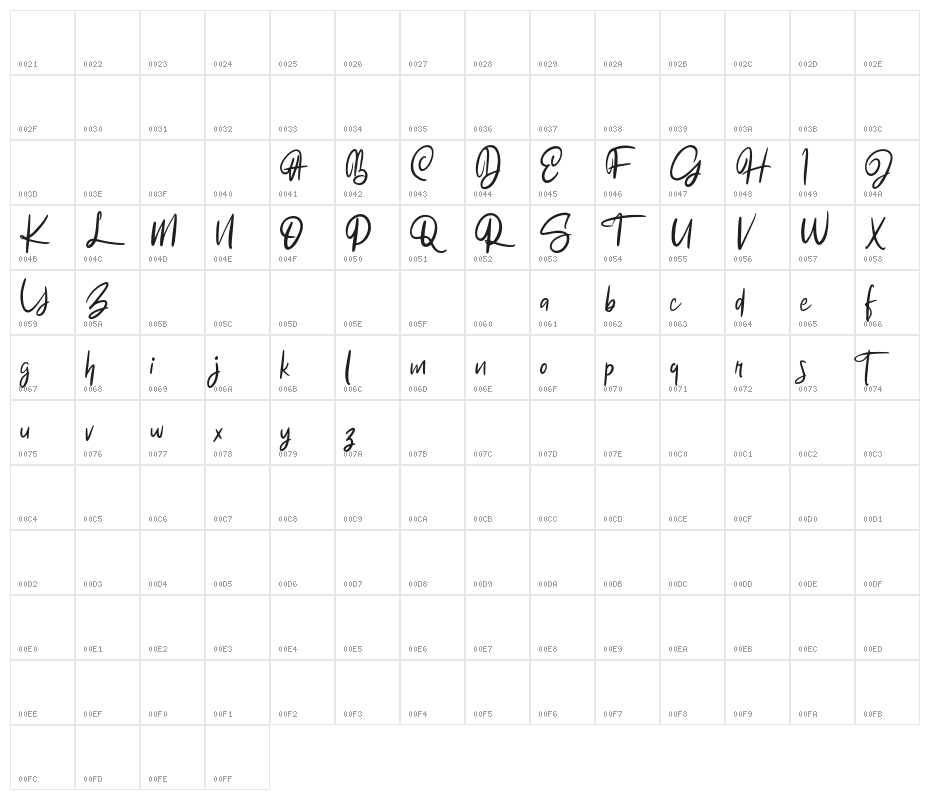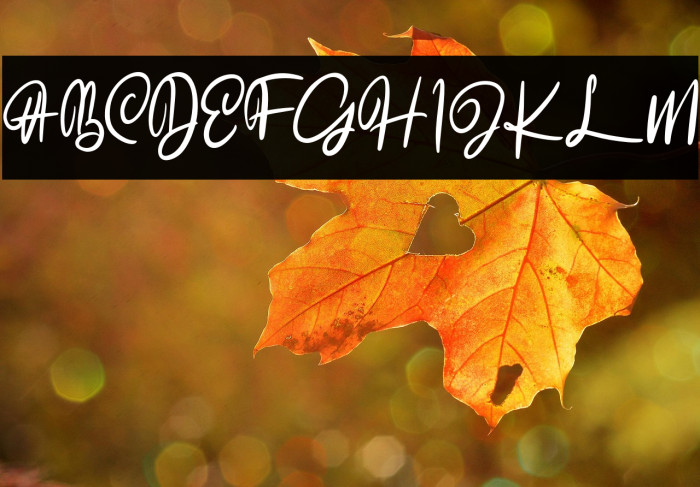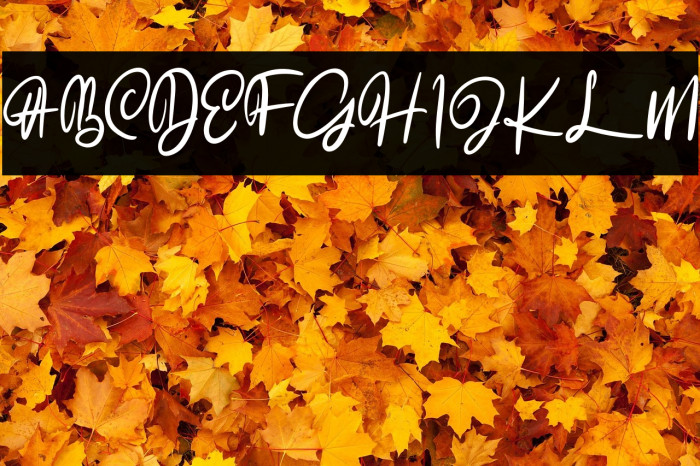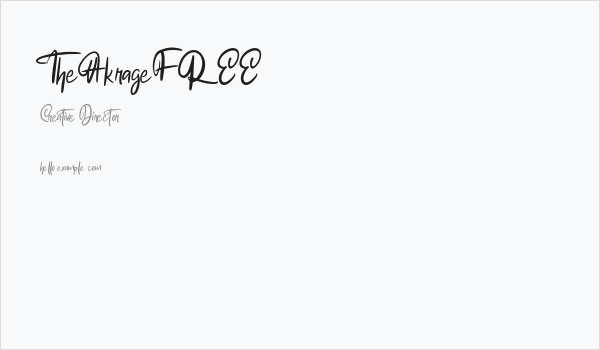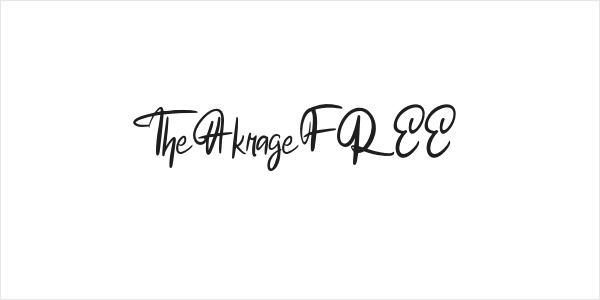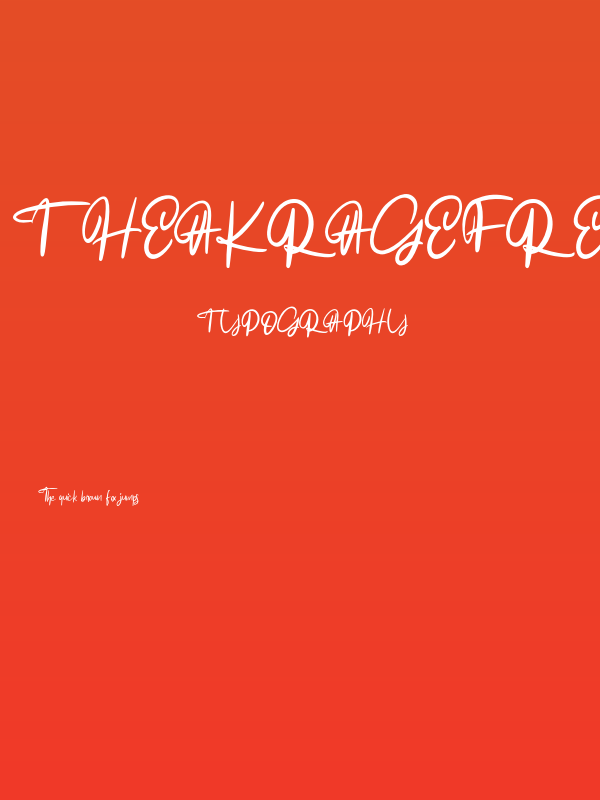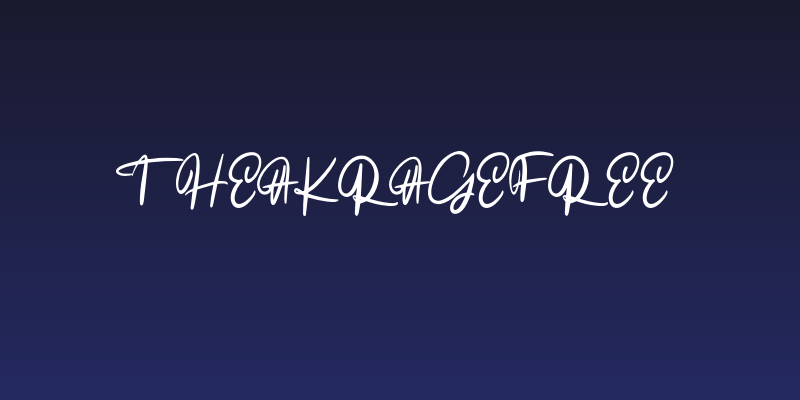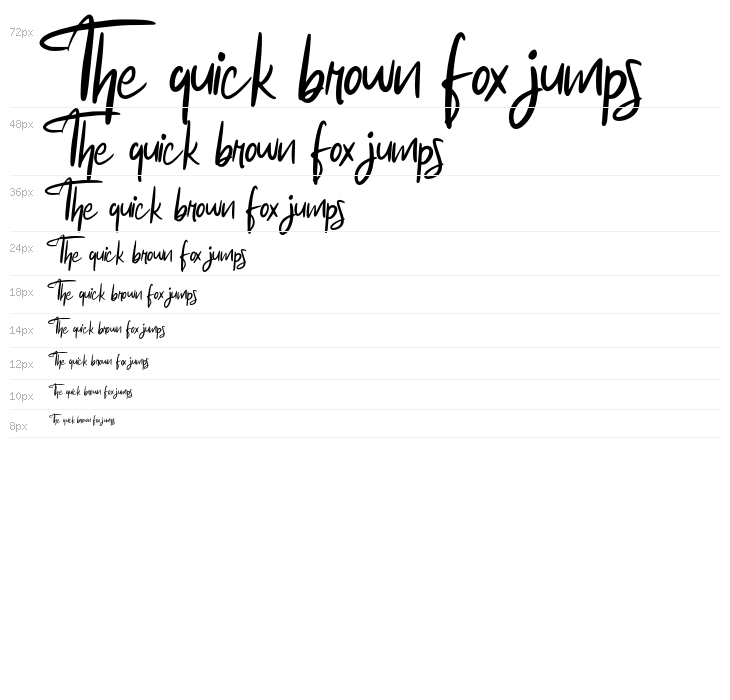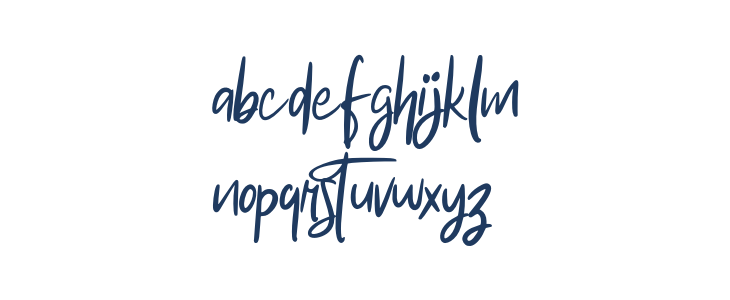
TheAkrageFREE Font
TheAkrageFREE Description
This font features a dynamic and expressive handwritten style, characterized by its fluid and flowing letterforms. The uppercase letters exhibit a playful yet elegant script with varying stroke widths, adding a sense of movement and personality. The lowercase letters maintain this lively aesthetic, with some letters featuring unique loops and swashes that enhance the overall charm. The numbers and special characters are consistent with the font's handwritten theme, offering a cohesive look across all glyphs. This font's artistic flair makes it suitable for creative projects that require a personal touch.
| Proposed Projects | Ideal for wedding invitations, greeting cards, branding, and social media graphics. |